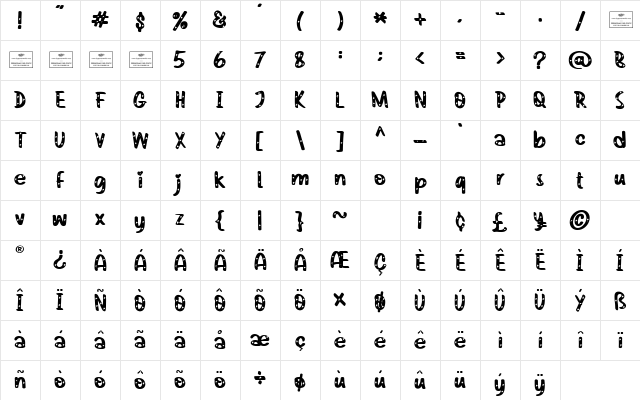
Infinitely Regular Free Font
Infinitely Regular
Designer: Alpaprana Studio
Design Context for Infinitely
Infinitely is a composed and adaptable typeface that performs quietly and consistently across a wide range of design contexts.